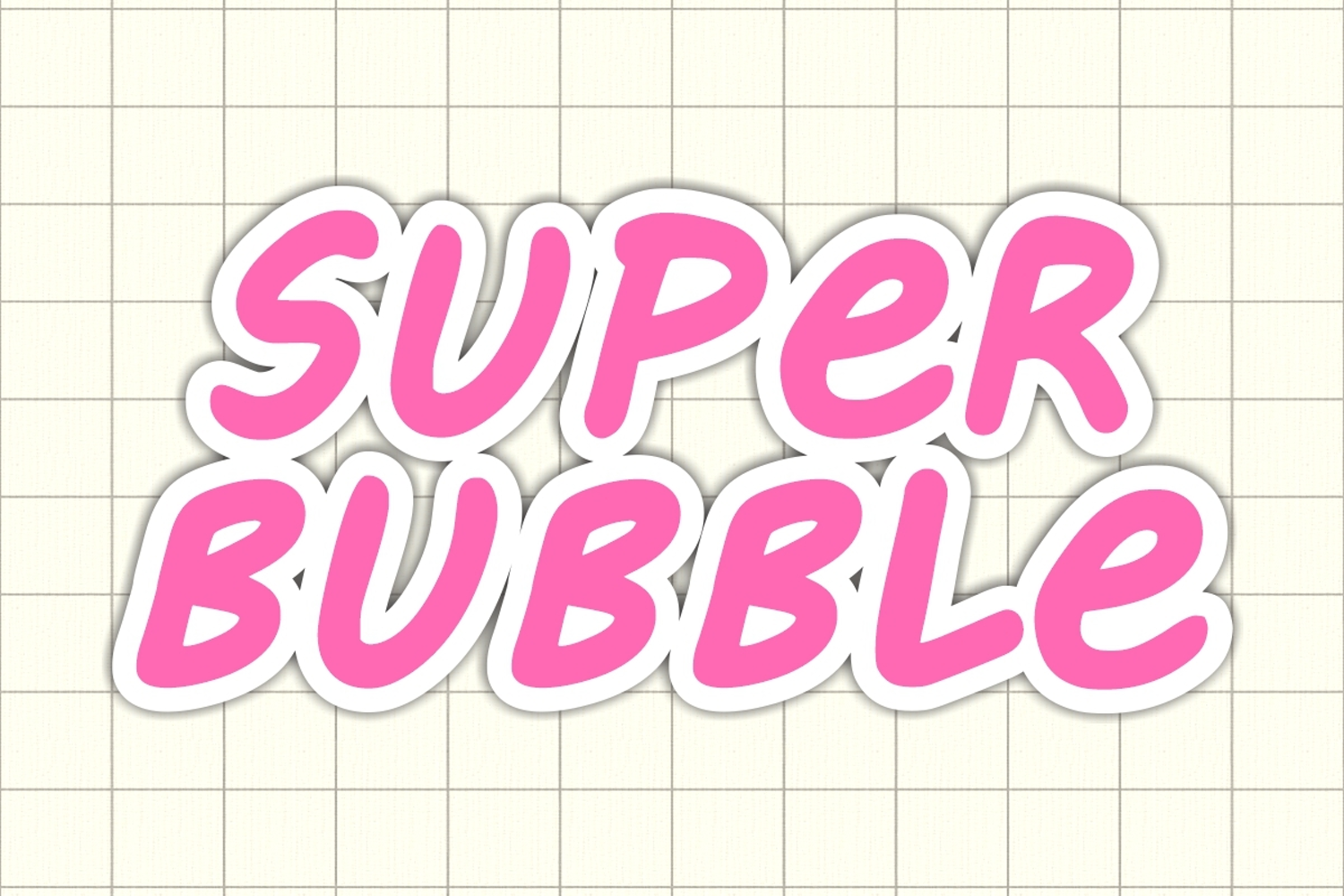
Super Bubble
Super Bubble is a cheerful and adorable display font with soft, rounded shapes and a bubbly, playful style. Its smooth curves and friendly appearance make it perfect for kids’ designs, logos, stickers, social media graphics, posters, and fun branding projects. This font adds a lively, sweet, and energetic vibe to any creative layout.